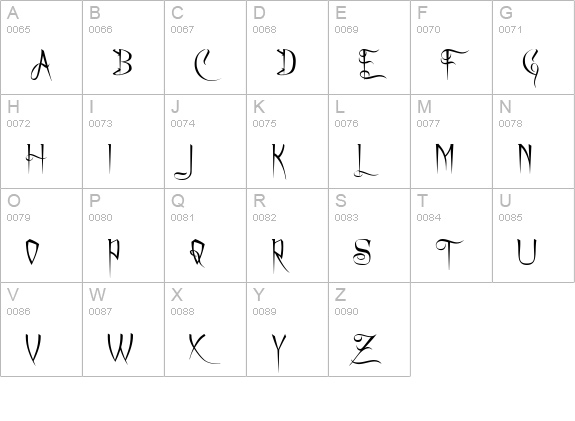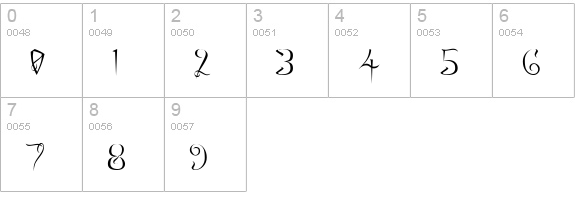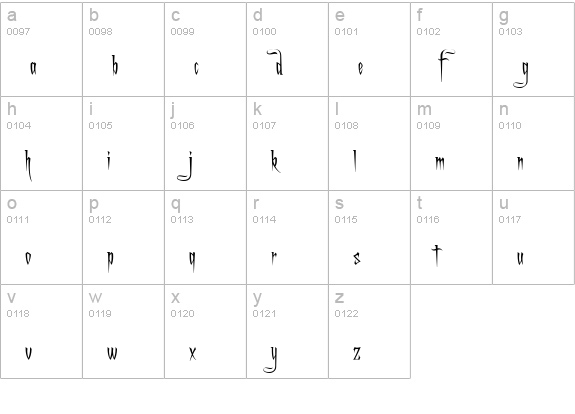
A Charming Font Font Details
A Charming Font is a whimsical and enchanting typeface that will add a touch of magic to any design project. With its delicate curves and elegant letterforms, this font exudes a delightful charm that is sure to captivate and inspire. This font is not only visually appealing, but it is also incredibly versatile. It can be used for a wide range of purposes, from creating stunning logos and branding materials to designing beautiful invitations and greeting cards. No matter how you choose to use it, A Charming Font is guaranteed to make a lasting impression. The best part? This font is available for free! That's right, you can freely download A Charming Font at FontsMarket.com. Whether you're a professional designer or just someone looking to add a little bit of charm to your personal project, this font is a must-have. Don't miss out on this opportunity to enhance your designs with a touch of elegance and whimsy. So why wait? Download A Charming Font today and let its enchanting beauty elevate your designs to new heights.